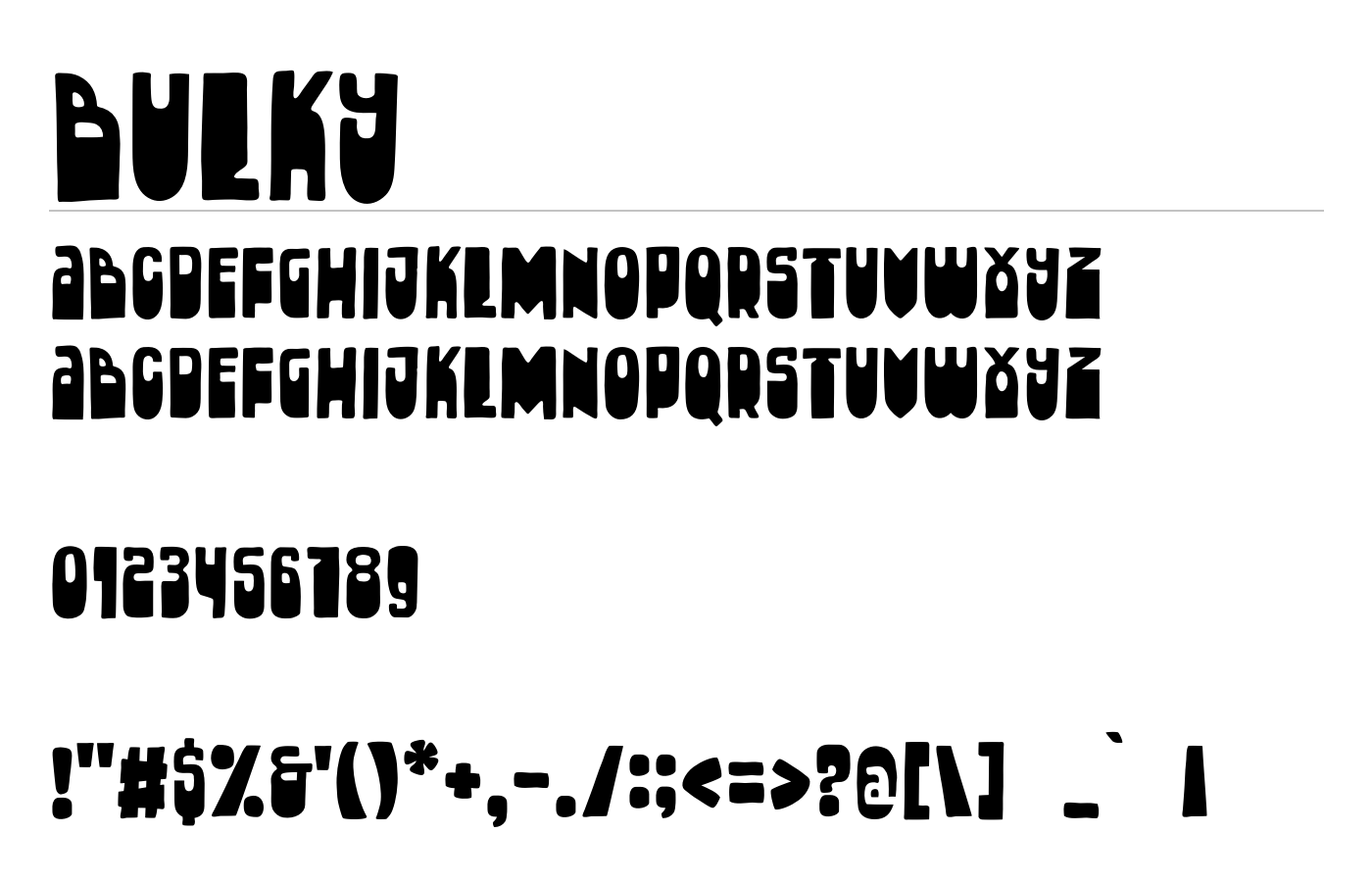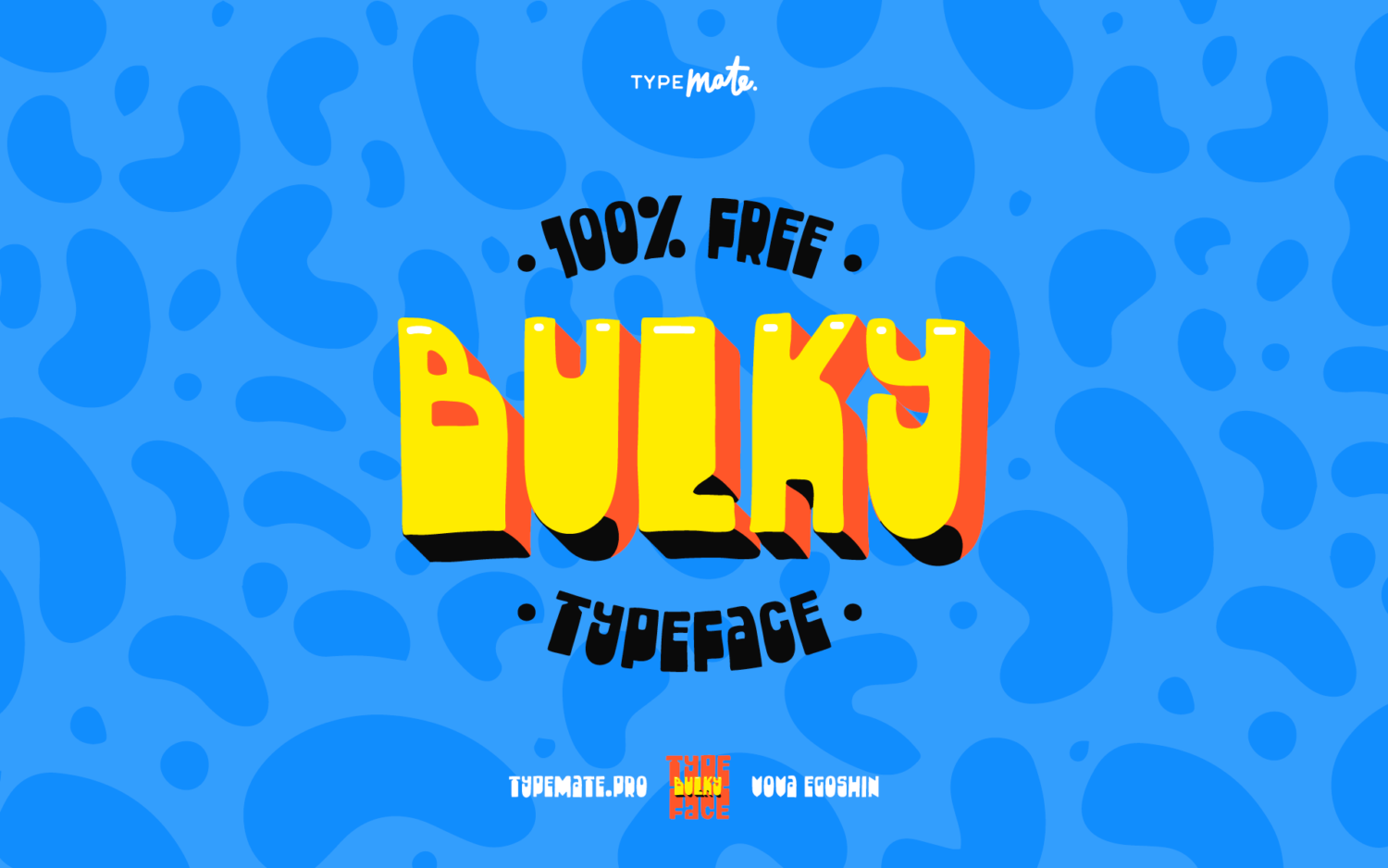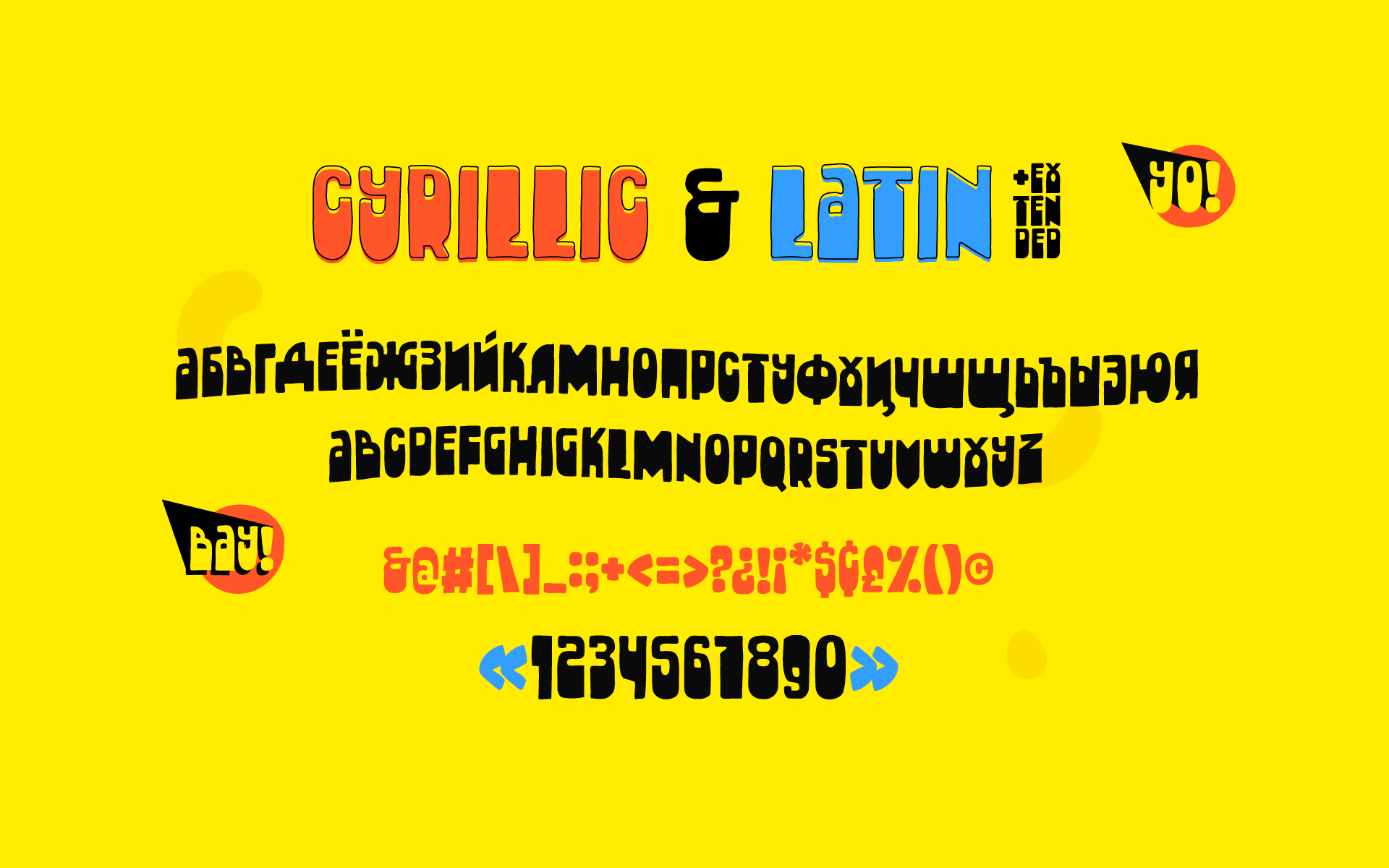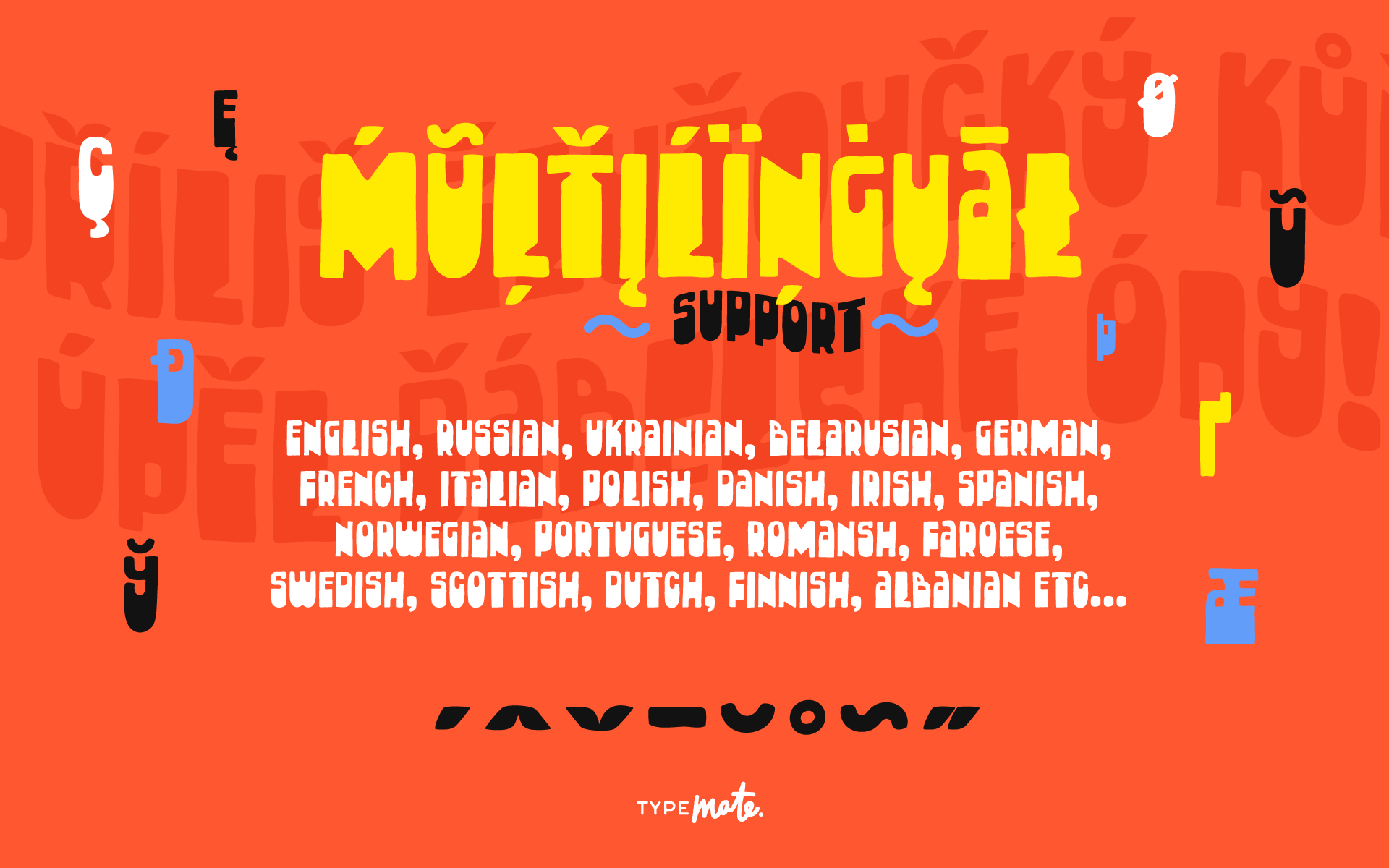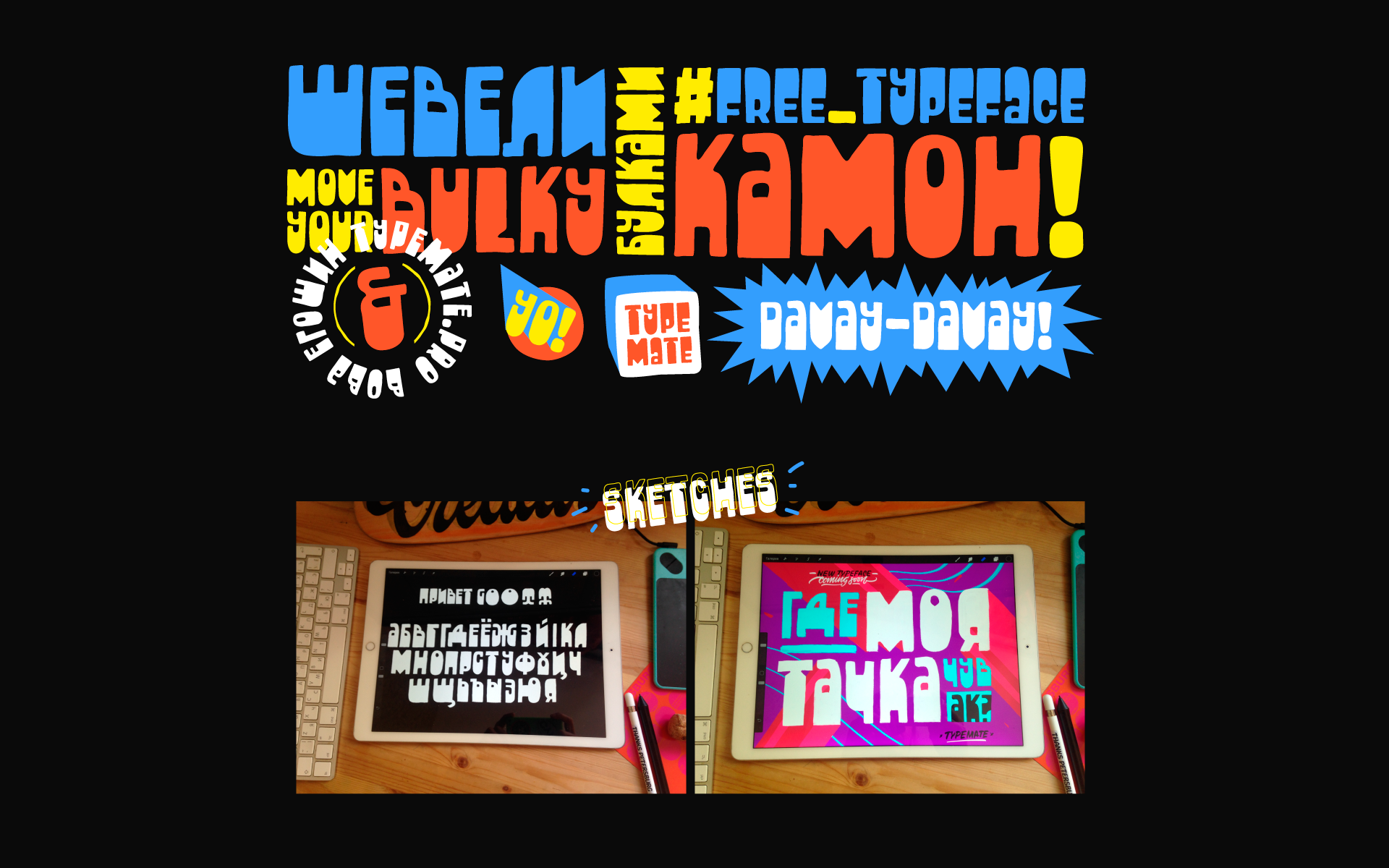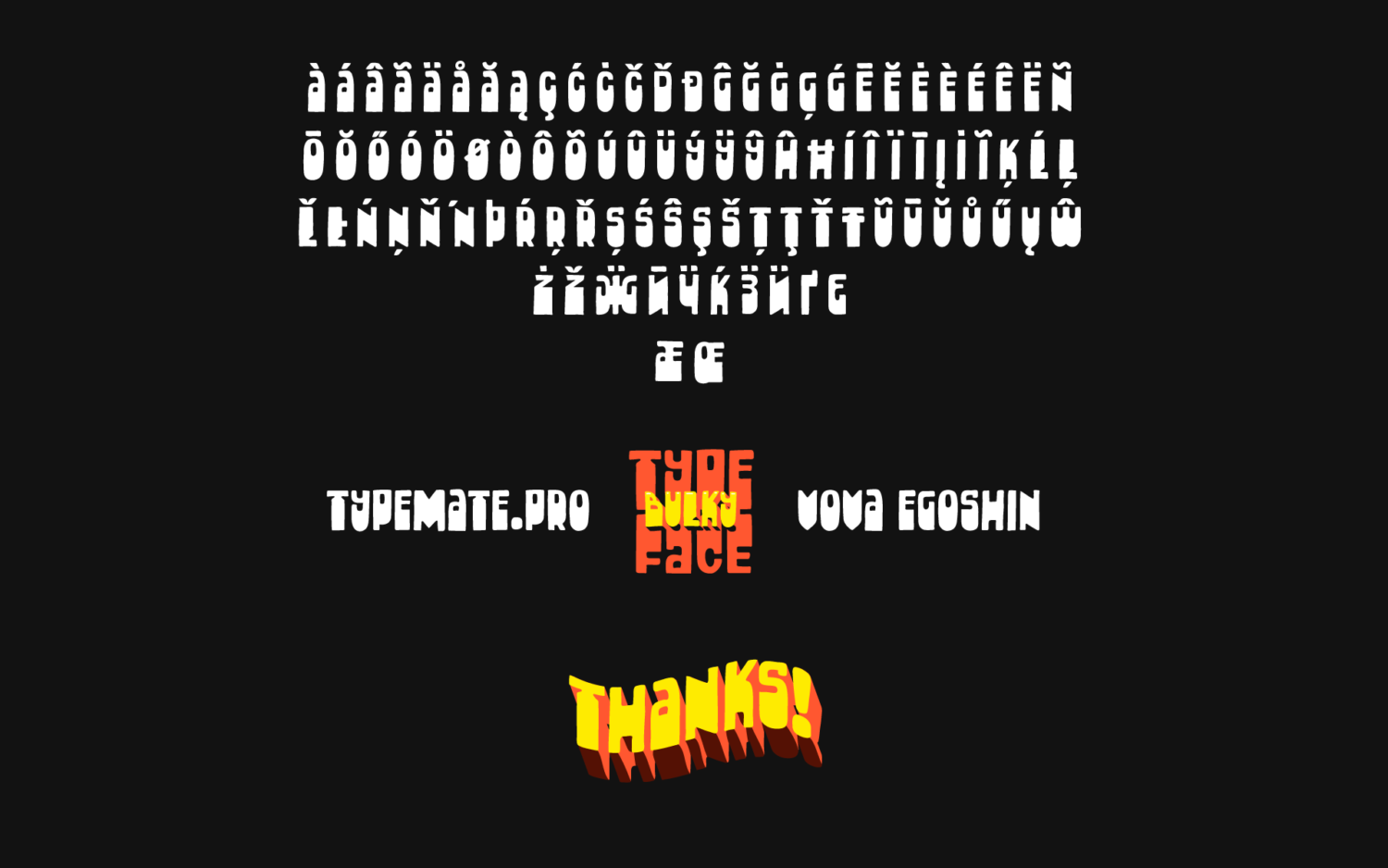
Bulky is a bold, condensed sans serif font with a playful and quirky personality, featuring chunky letterforms with soft edges and uneven heights that create a hand-crafted feel. Its high-impact style and distinctive shapes make it ideal for eye-catching headlines, posters, and branding that aim to stand out with a fun and informal vibe. This font works best in creative and casual contexts where personality and strong visual presence are key.
Bulky
About Bulky